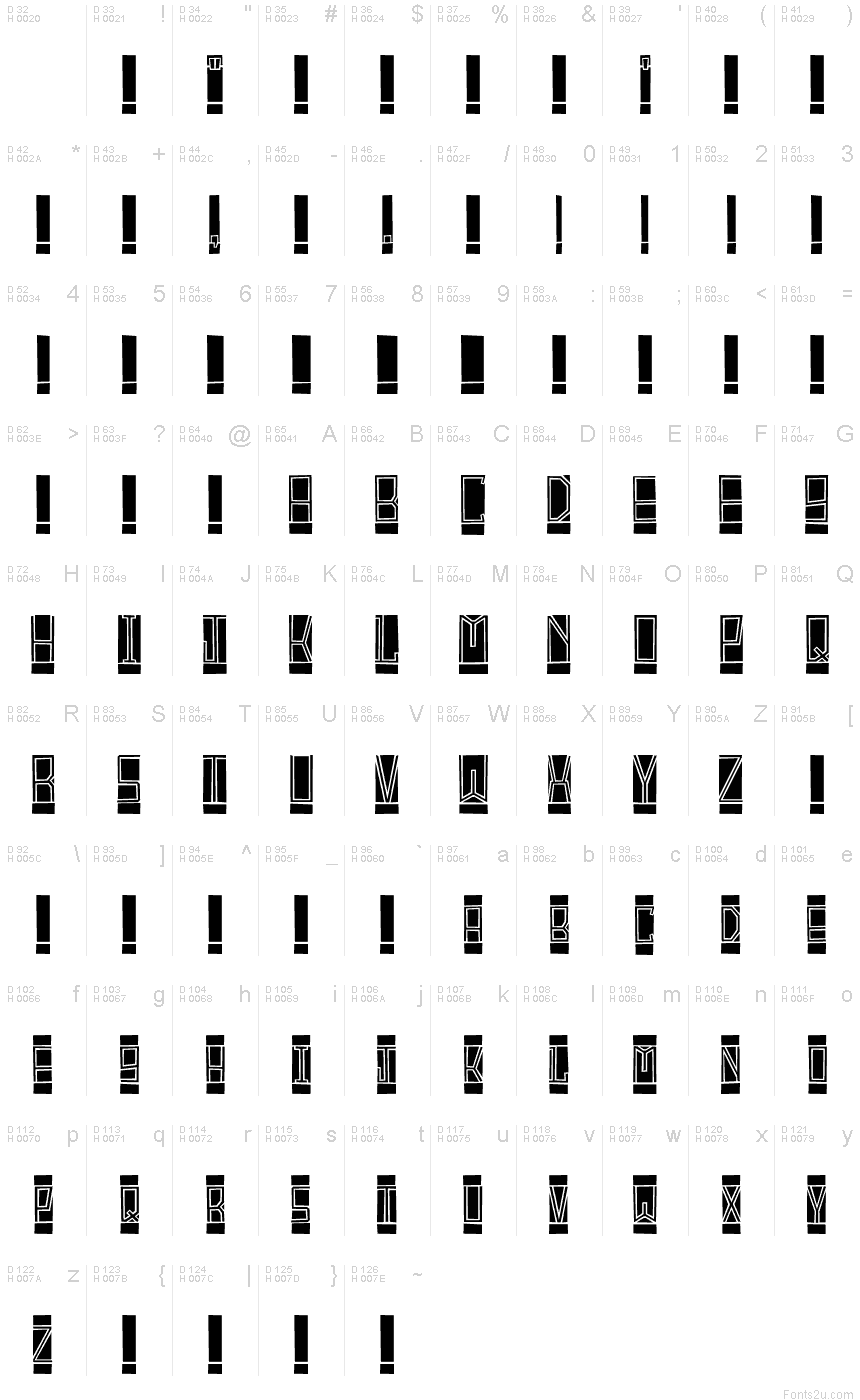
BlockTitling Standard
BlockTitling Standard font is a free decorative block title typeface that looks like it’s been built from loose, chalky tiles. Each letter sits inside a slightly wobbly rectangle, with thin white lines buzzing against solid black fills, giving text a cut-and-pasted, DIY energy. The BlockTitling family feels bold and raw, like something scrawled across a club wall or zine cover, yet its consistent grid keeps it legible and easy to spot from a distance.
Using BlockTitling Standard font, your words don’t just sit on the page—they slam down like a stamp. This free font shines on gig posters, album art, underground event flyers, comics, zines, and edgy streetwear branding. It also works beautifully for YouTube thumbnails where you need loud, graphic titles that read fast. For balance, pair BlockTitling with a clean geometric sans at smaller sizes so the wild block letters stay the star.